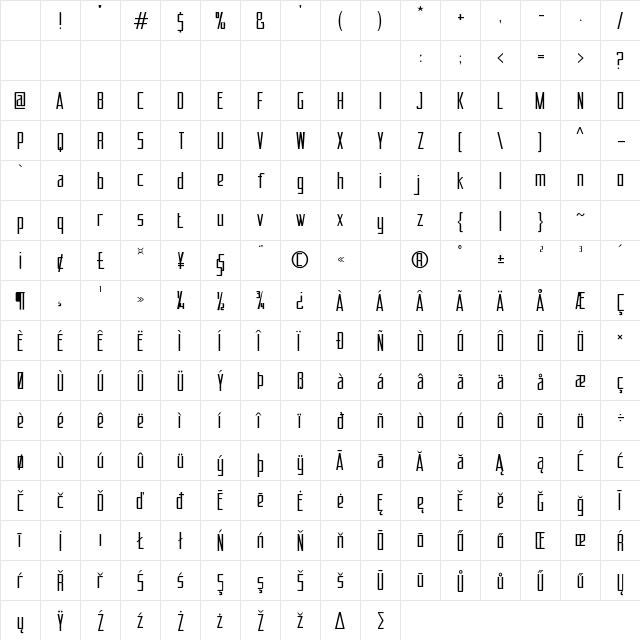
Complete Albertville Sport Regular glyph index. Displaying only characters natively supported by Albertville Sport Regular font.
Albertville Sport brings high-energy athletic personality to the page - its confident, muscular forms are built for impact.
Pro Tip: Use Albertville Sport in all-caps headlines where its athletic energy can fully express itself. Pair with a solid, simple sans for supporting text.